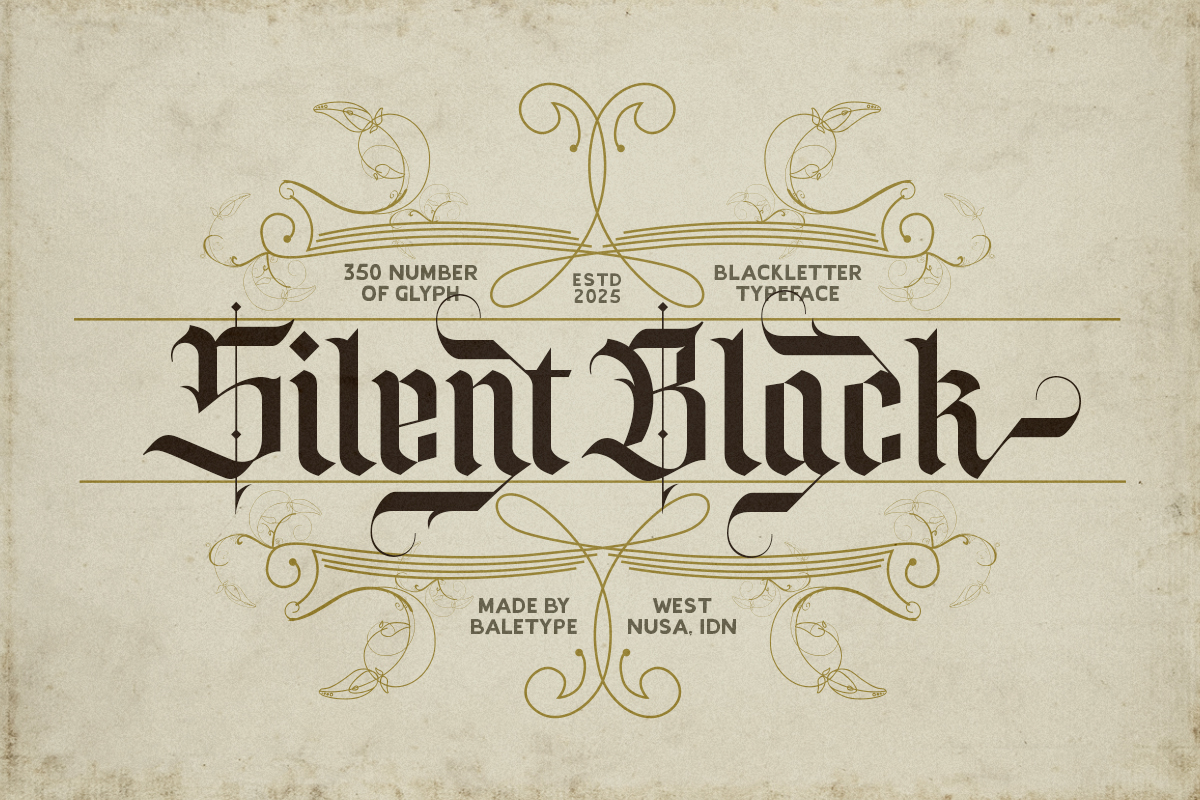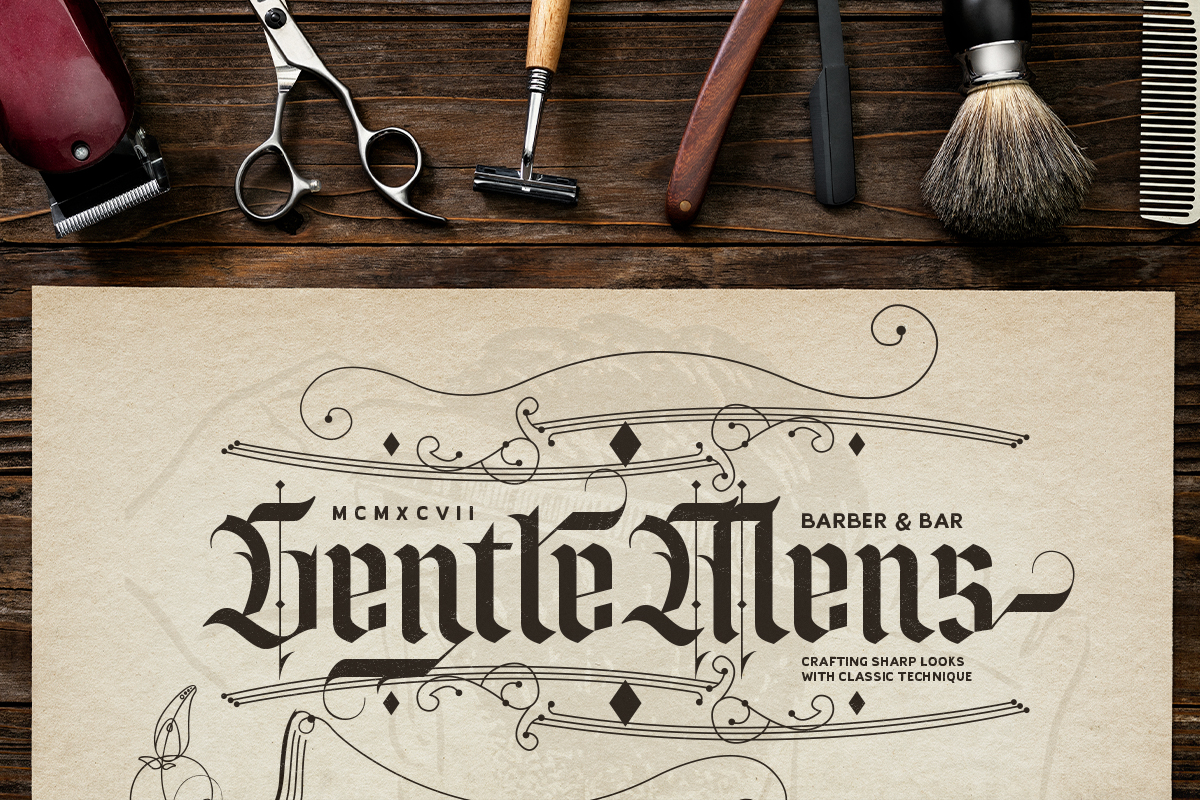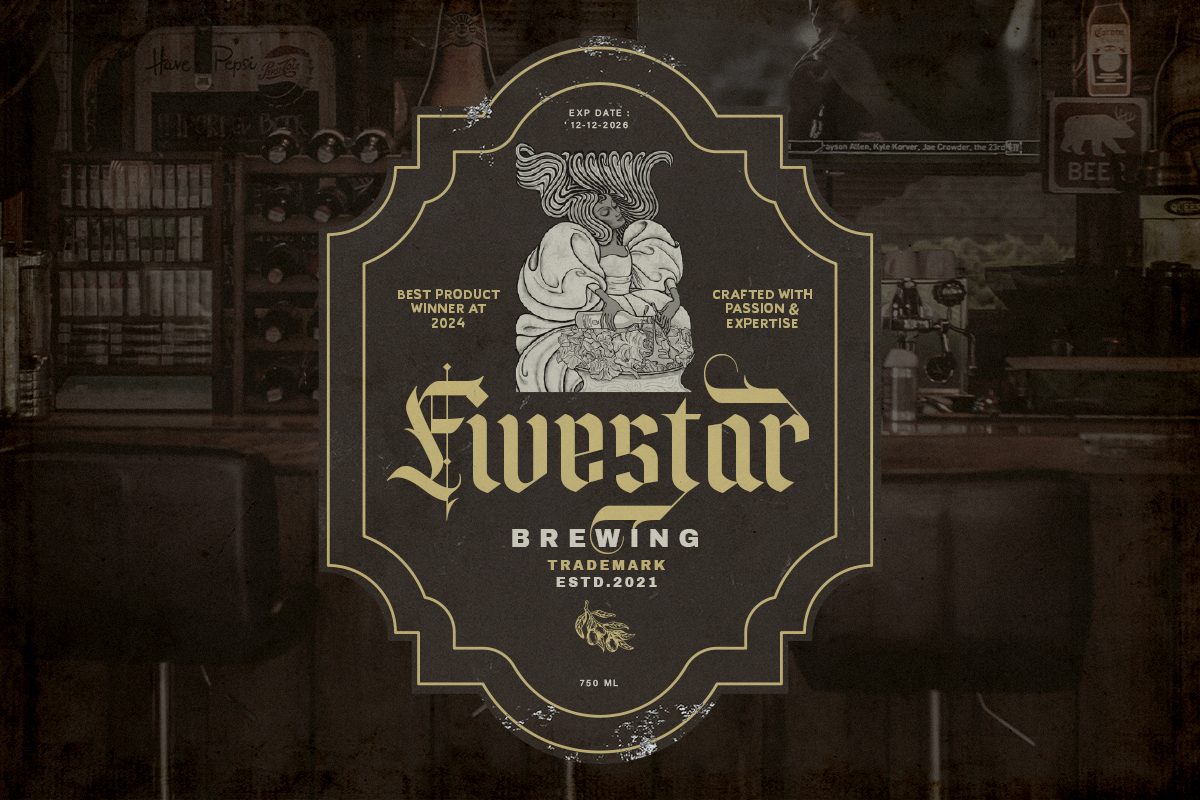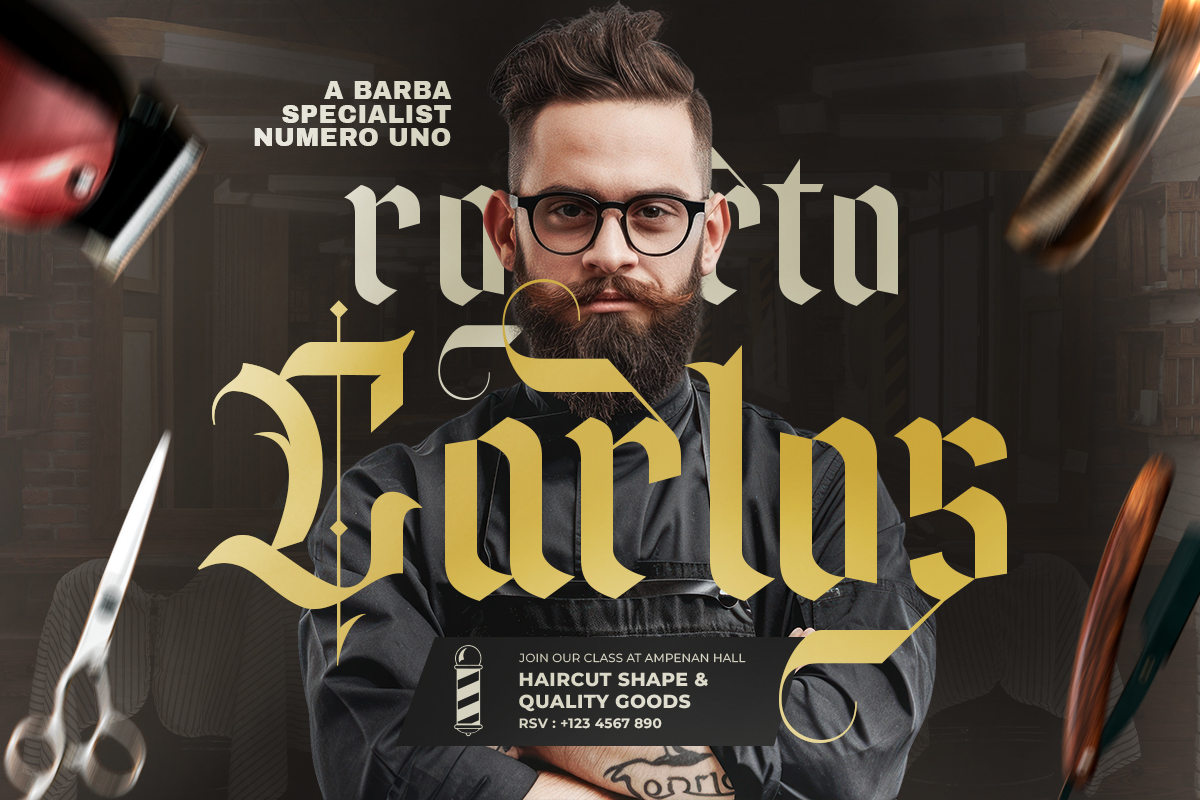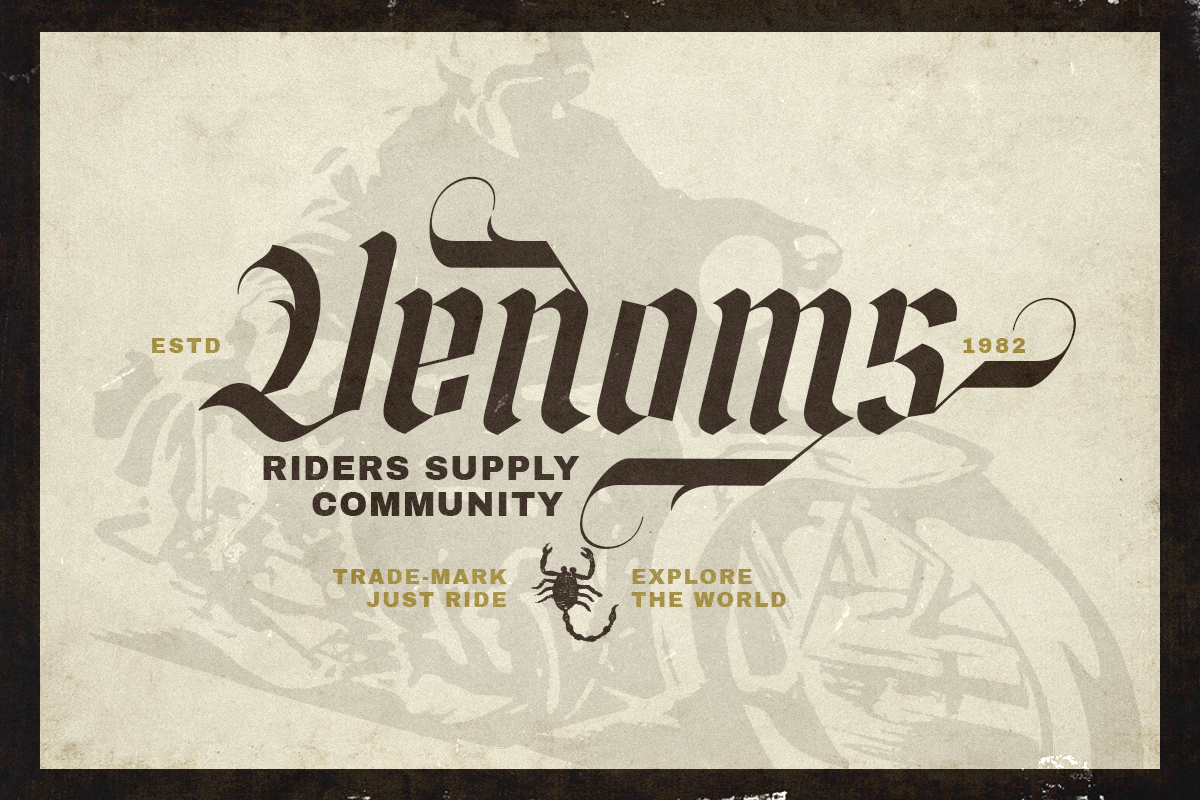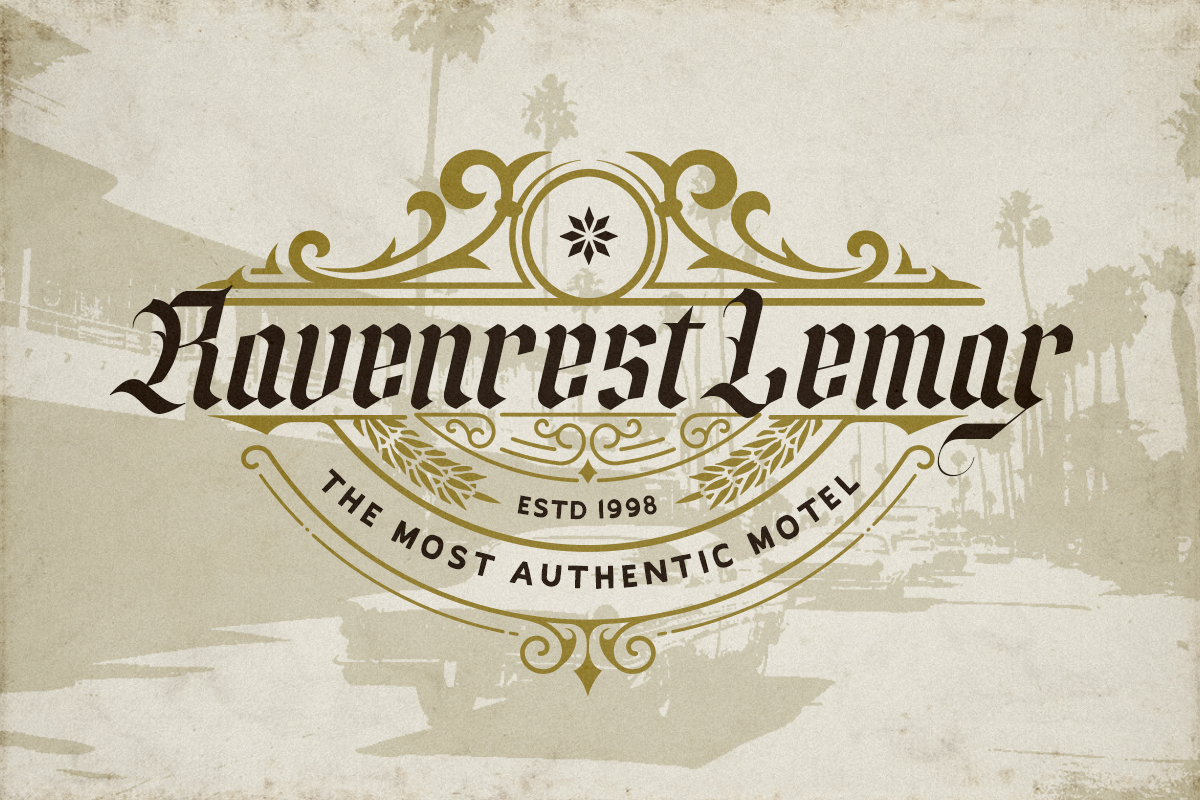
Silent Black - Stylish Blackletter
Silent Black is a stylish blackletter font with bunch of alternates. You can make stunning graphic with this font. And even more eye catching with stylistic alternates that you can use for your project, logotype, and more. This font also comes with italic version. Silent Black is also support multi language.
Silent Black – Stylish Blackletter
Silent Black is a stylish blackletter font with bunch of alternates.